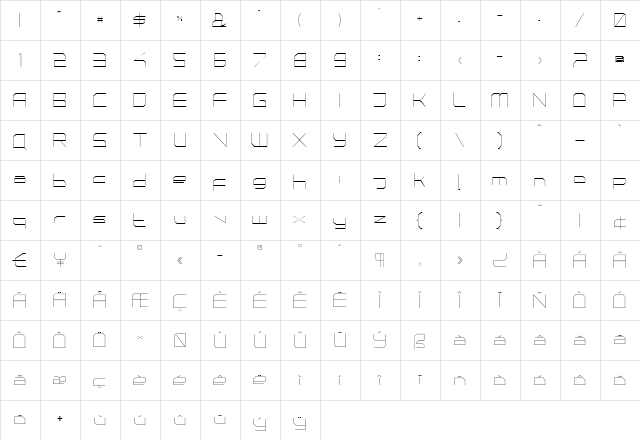
PhutureSqrdClsd Regular
Design Context for PhutureSqrdClsd Typeface
PhutureSqrdClsd offers clean, dependable letterforms without strong stylistic allegiance, making it a practical choice for designers who need flexibility.